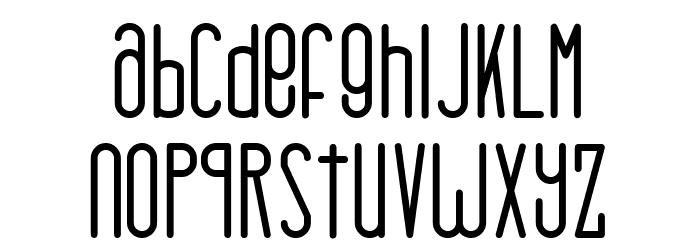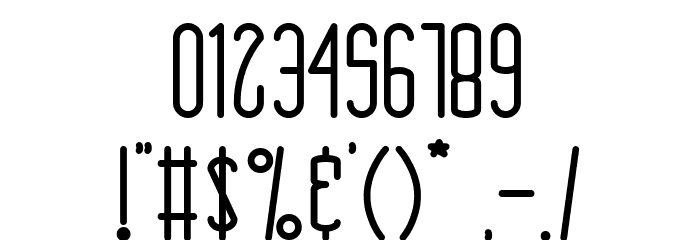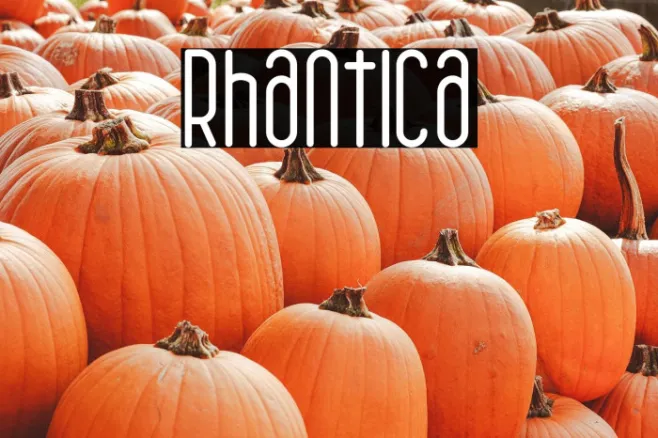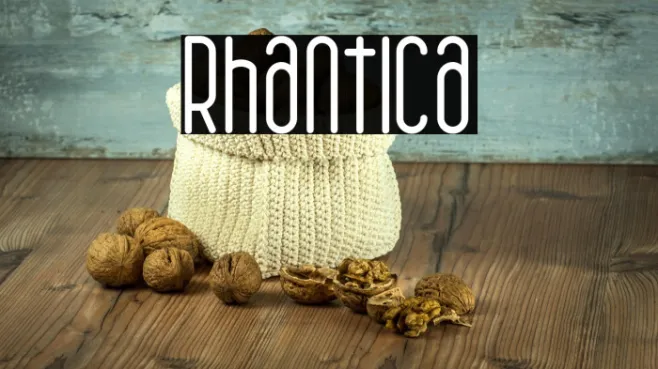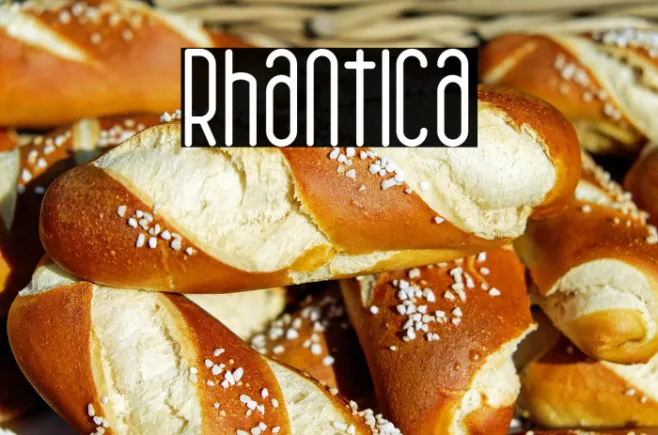
Rhantica Font
This font features a clean and modern aesthetic with tall, narrow characters that give it a sleek and contemporary look. The uppercase and lowercase letters maintain a consistent height, contributing to its uniform appearance. The rounded edges soften the overall feel, making it approachable yet stylish. The numerals and special characters follow the same design principles, ensuring cohesion across all elements. Its simplicity and elegance make it versatile for various design applications.
A modern, sleek font with tall, narrow characters and rounded edges.
- Proposed Projects: Ideal for branding, editorial design, packaging, and digital interfaces where a modern and clean look is desired.
- Category: Sans-Serif
- Use Case: Headlines, Logos, Digital interfaces